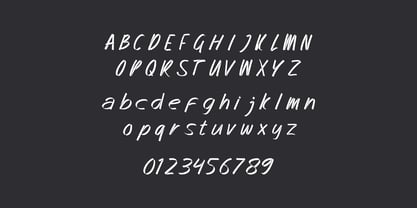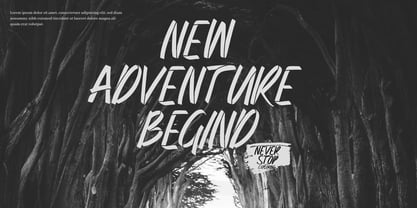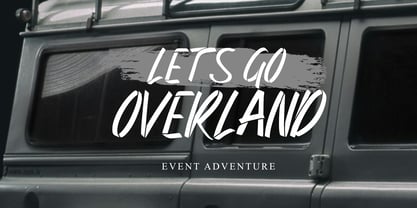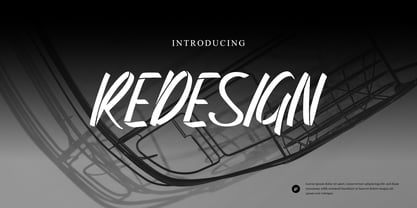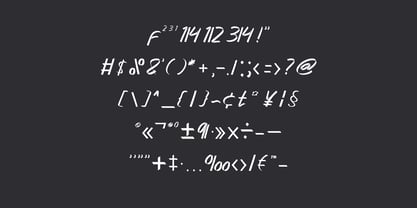
Redesign
The Redesign Font Family was designed by Wahyu Aji Prasetyo and published by WAP Type. Redesign contains 1 styles. More about this family
Brush Stencil Font is a rough brushstroke style font combined with a firm stencil cut, creating a strong, bold, and expressive letter character. This font is designed for those of you who want to display street, rebel, and modern visuals in one typographic touch. Each letter has a natural texture like a hand scribble, giving a lively and authentic impression, while remaining neat and easy to read for professional design needs. ⸻ ✨ Suitable For: Event posters and flyers T-shirt & merchandise design Clothing & streetwear branding Social media content & visual quotes Album cover, music artwork, & digital mural Website title & creative headline